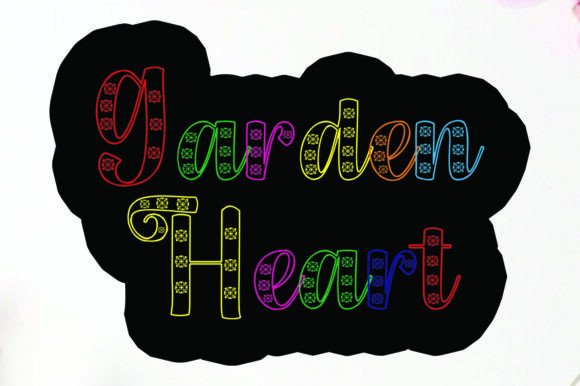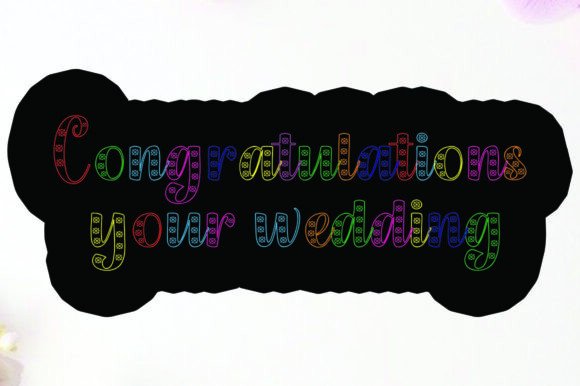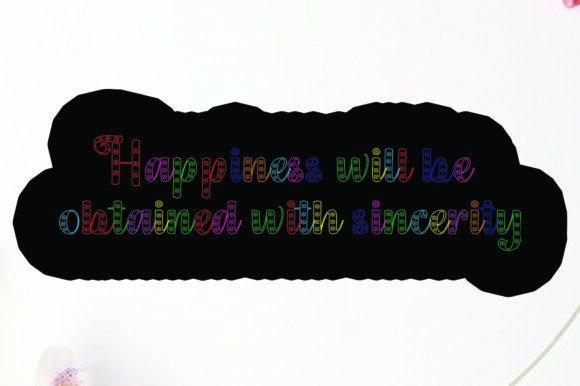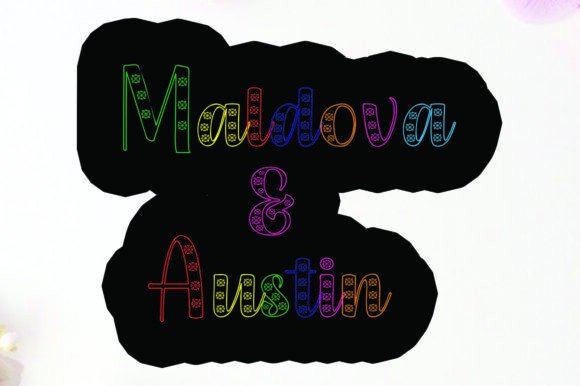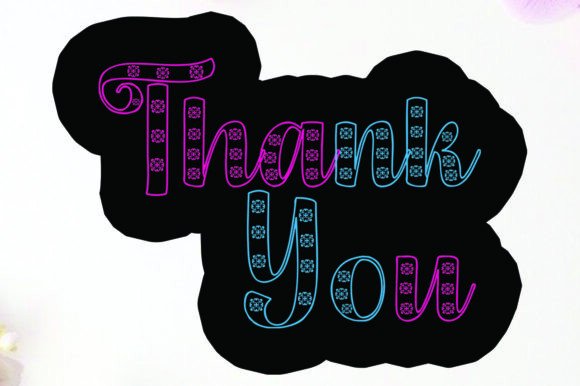
Introduction to Relgina Script Font
Do you remember that moment when you stumbled upon the perfect font for your creative project? The one that instantly elevates your design and makes it stand out? For designers, finding the right font can be a game-changer. It’s the difference between a good design and an exceptional one. And that’s exactly what we’re about to introduce you to – the Relgina Script Font.
This beautifully crafted font is a treasure trove of creativity, perfect for designers who crave uniqueness and high-quality design resources. With its transparent background, Relgina Script Font is ideal for digital designing, crafting, presentations, and even greeting cards making. Whether you’re looking for a free download or a premium font, Relgina Script Font is sure to impress.
Key Features of Relgina Script Font
- High-quality, handwritten script font ideal for creative projects, such as invitations, greeting cards, and watercolor-inspired designs.
- Features a unique, elegant script style with subtle flair and personality, perfect for adding a touch of sophistication to any design.
- Includes a range of characters, including uppercase and lowercase letters, numbers, and punctuation marks, making it a versatile design resource.
Honest Review: Relgina Script Font
I recently had the chance to work with the Relgina Script Font, and I must say it’s been a great addition to my design toolbox. As a designer, I’m always on the lookout for high-quality fonts that can elevate my creative projects.
The Relgina Script Font delivers in terms of quality and style. The intricate details and elegant curves make it perfect for a variety of design applications, from wedding invitations to branding materials.
- Beautifully crafted script font with a touch of elegance
- Perfect for creative projects that require a personal touch
- High quality, making it suitable for both digital and print use
- No transparent background option, which can limit its use in certain design applications
- May not be suitable for projects that require a bold or modern font
Overall, the Relgina Script Font is a great addition to any designer’s collection. While it may have some limitations, its beauty and elegance make it a valuable resource for any creative project.